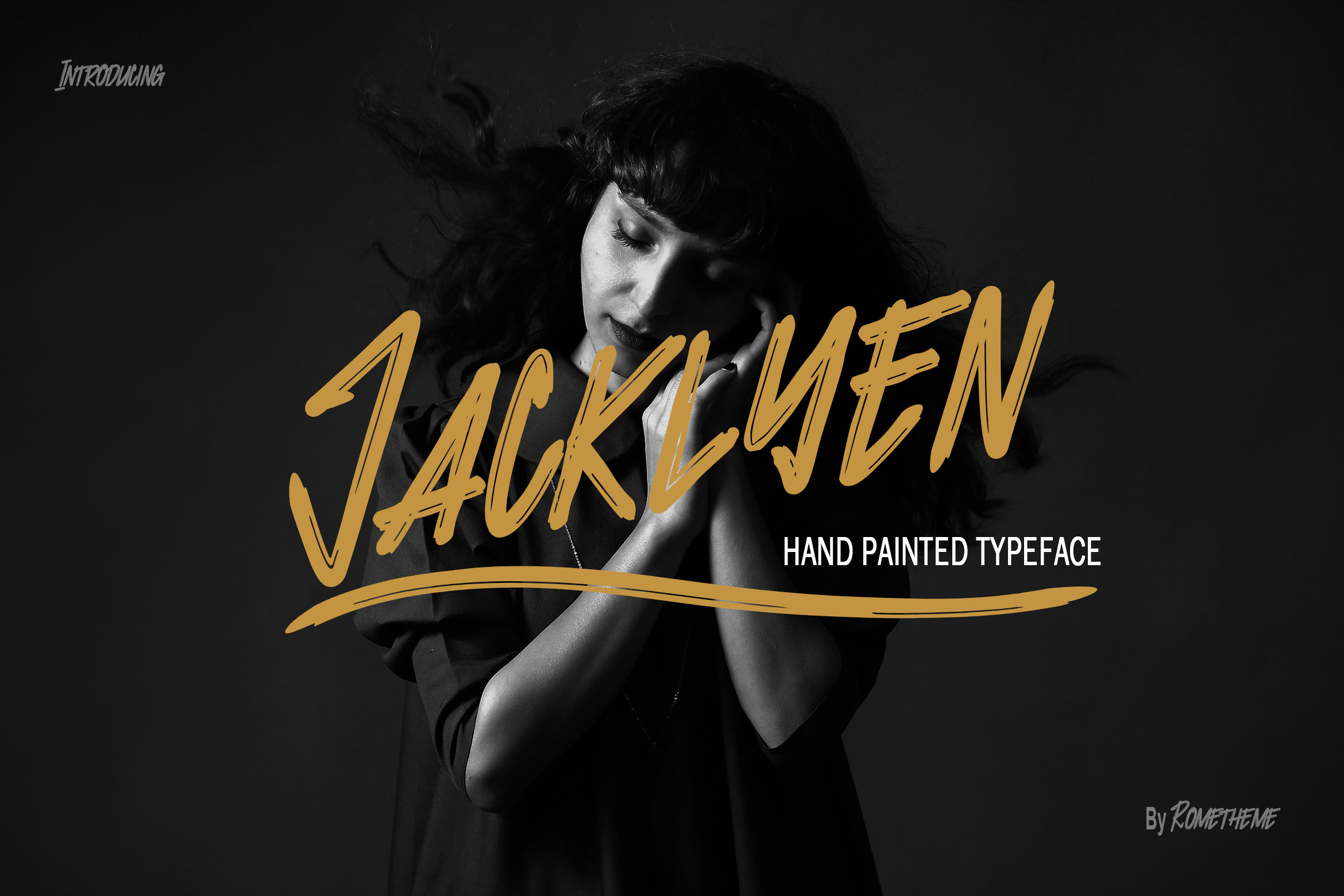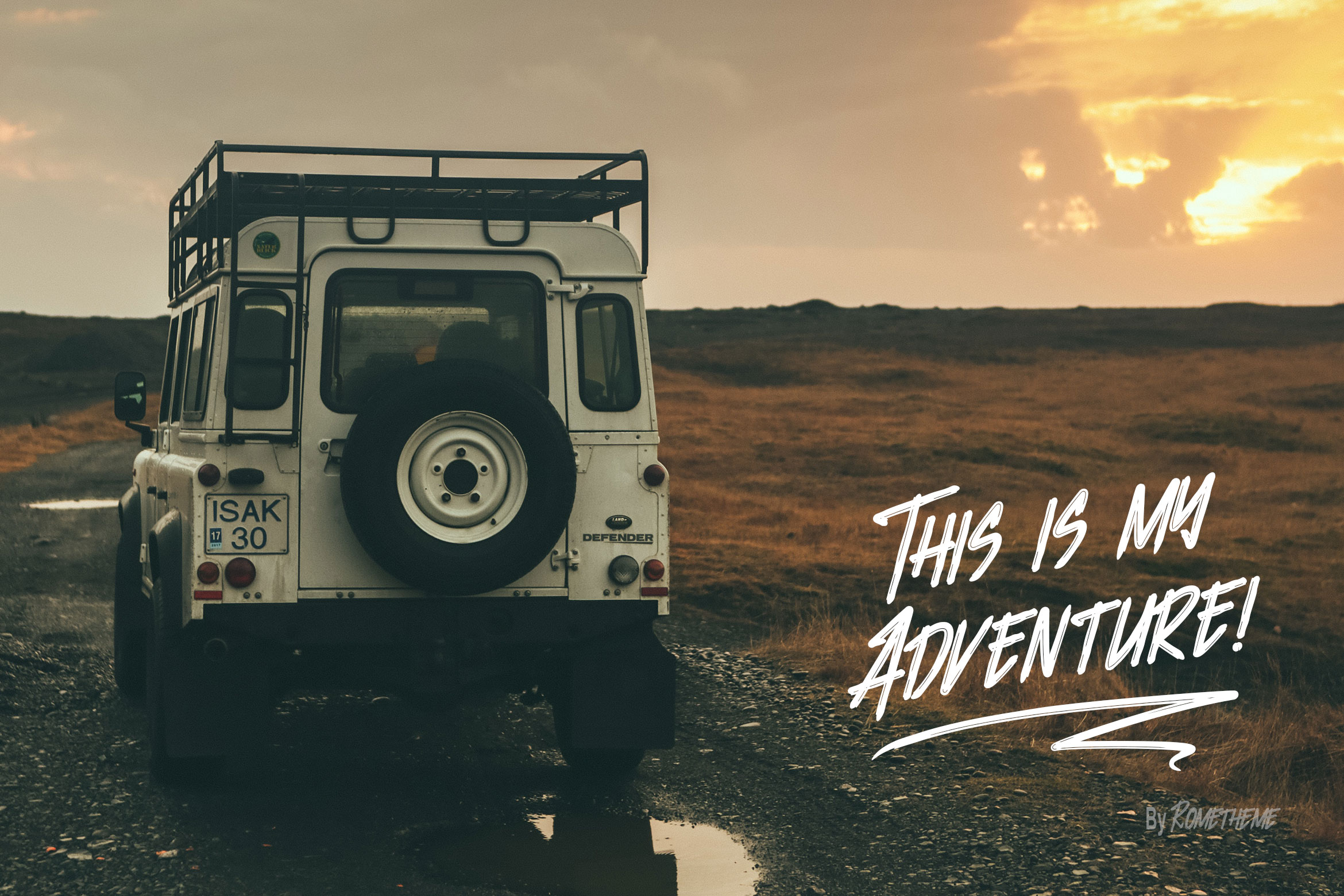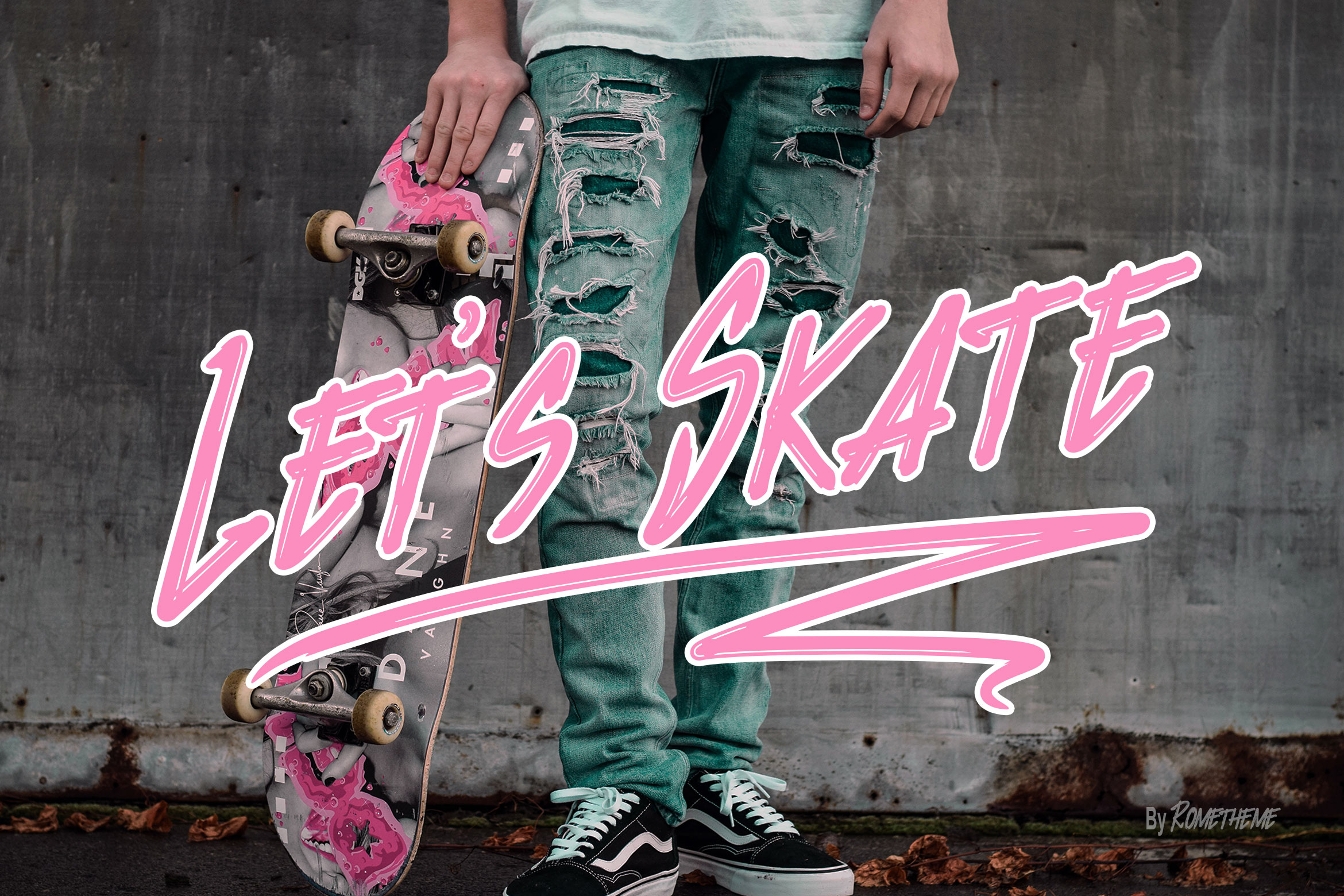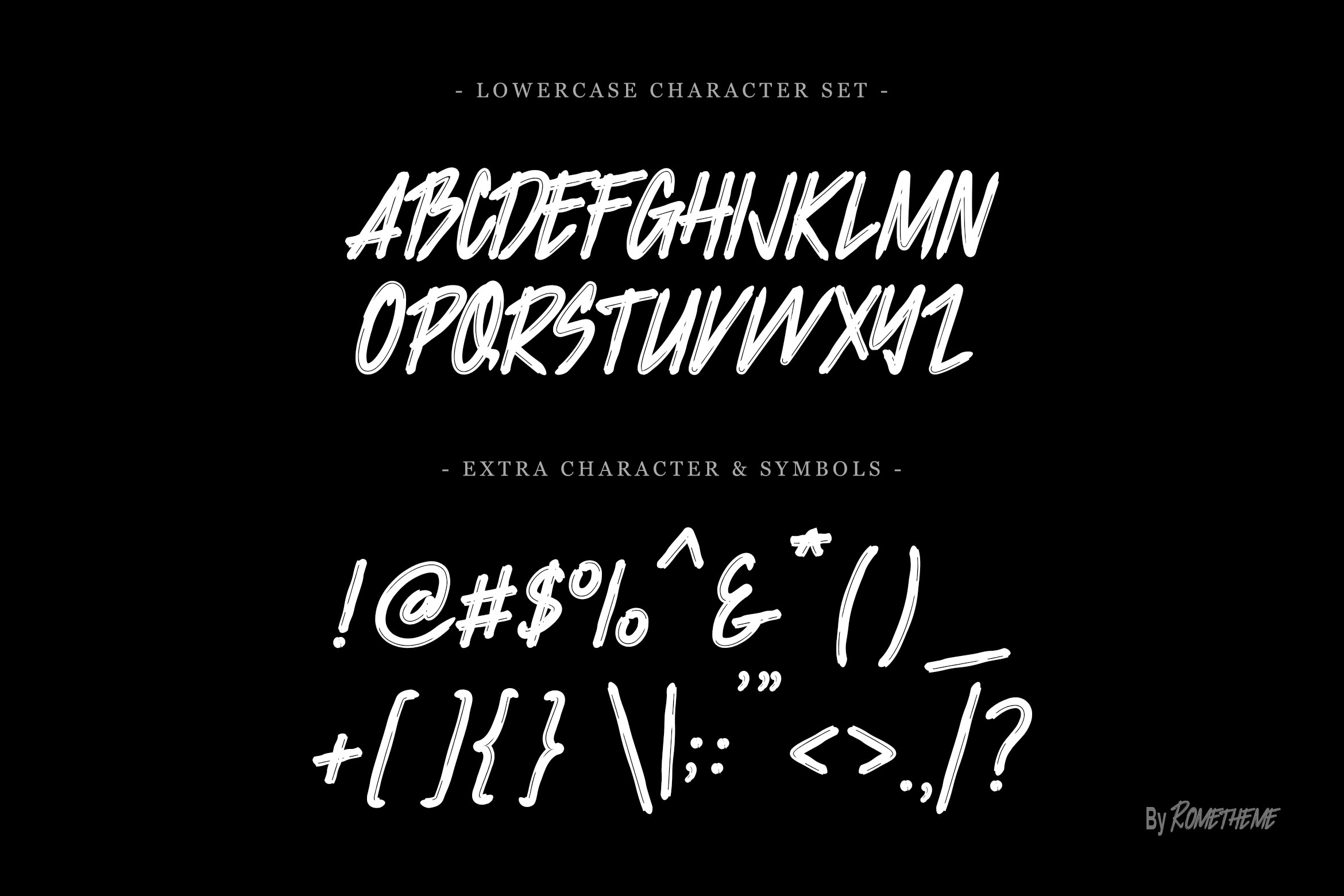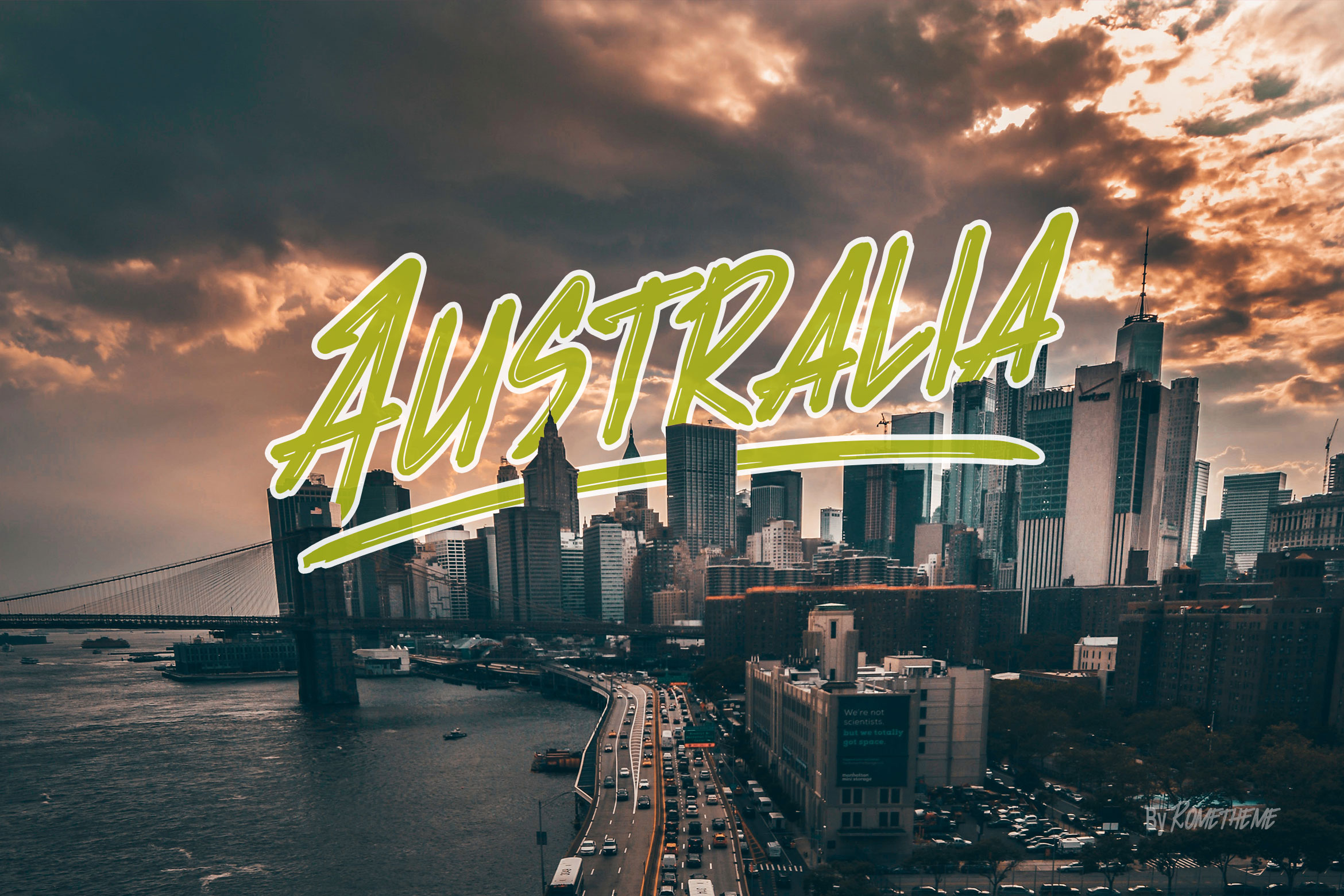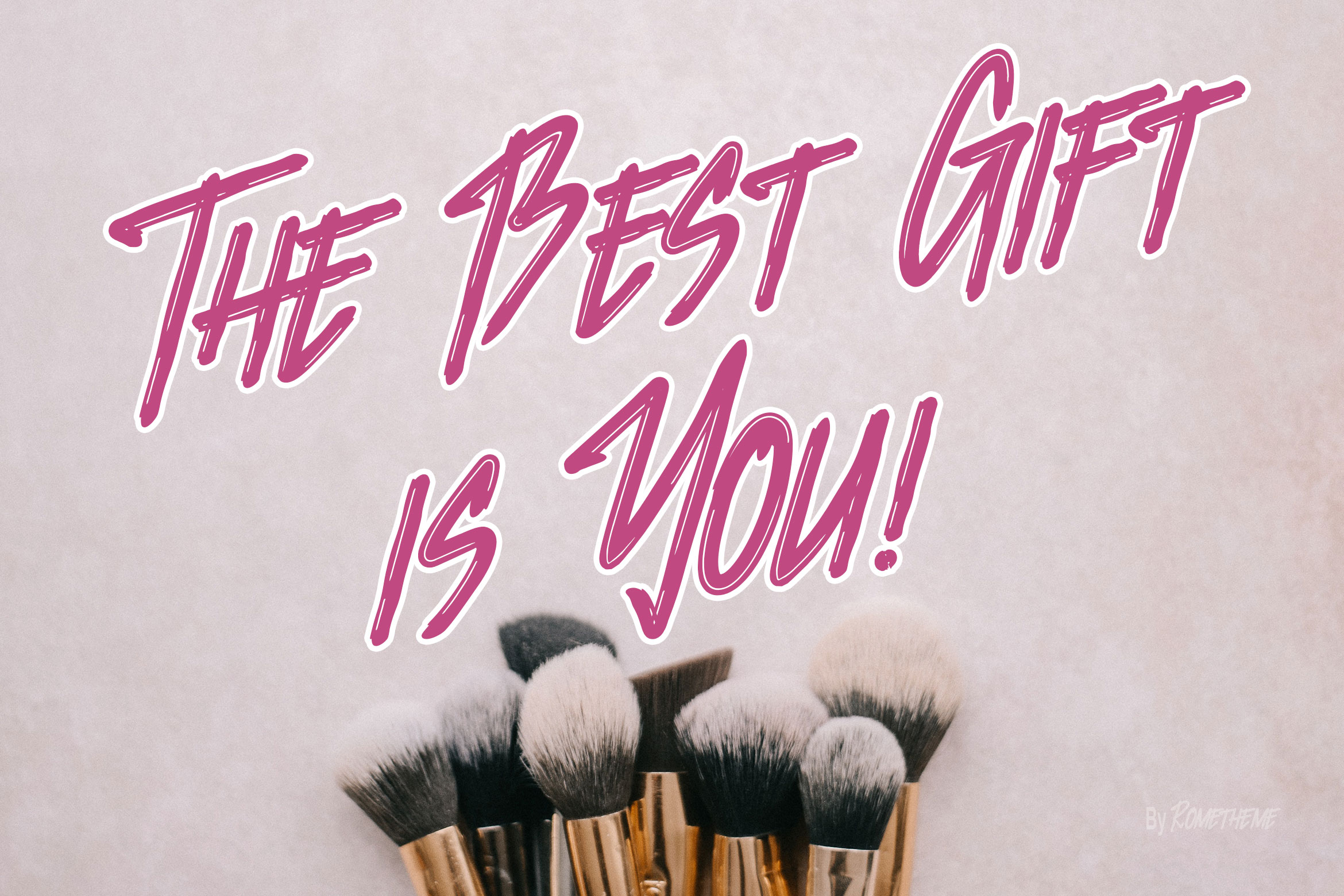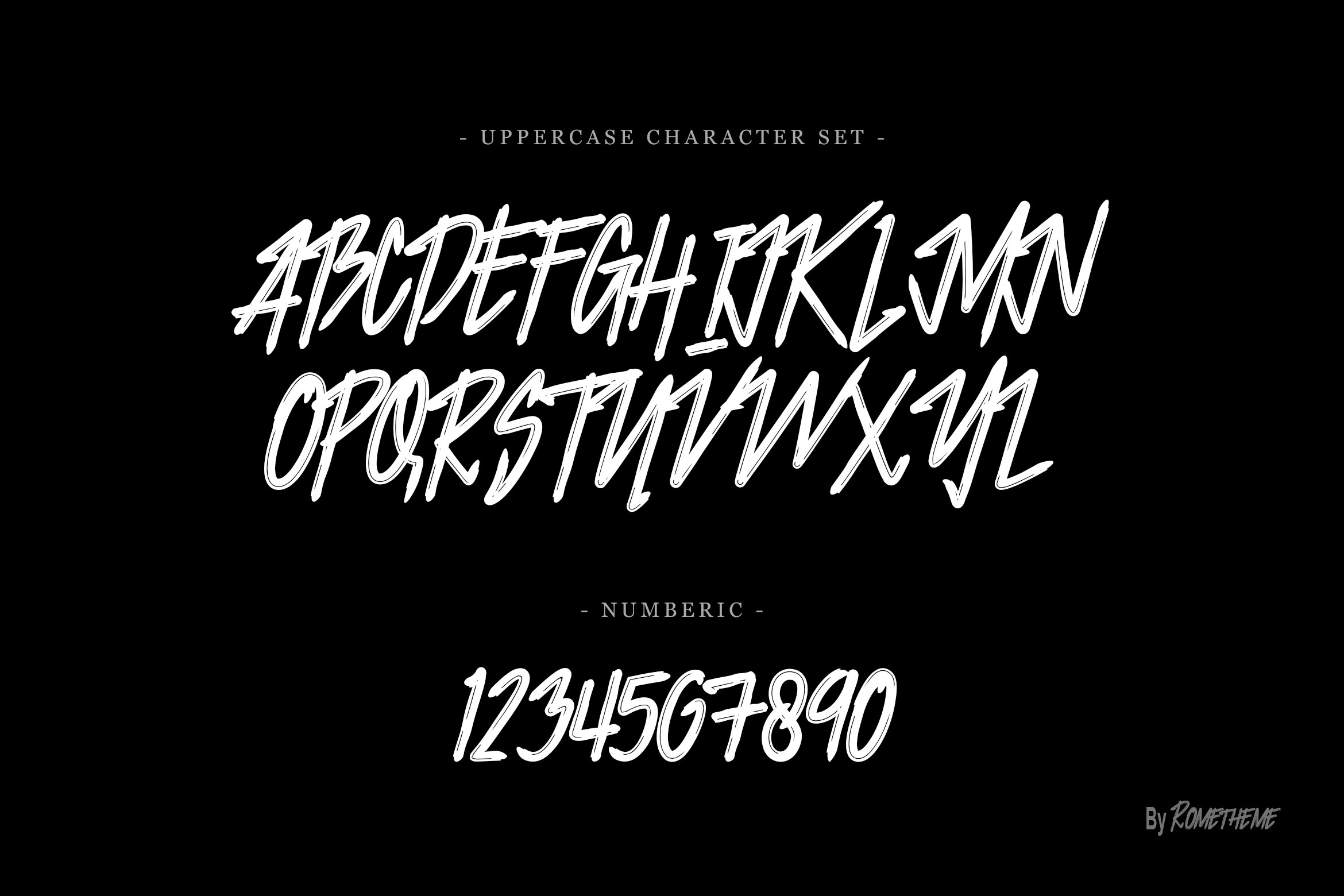
Jacklyen Font
Introducing -Jacklyen is a modern hand-drawn typeface. It has a elegant, classy look, catchy, readable and cool. This font is perfect for giving your branding projects, font for fashion, apparel projects, and goth vibe, but also works great for other projects like posters, packaging, advertising, headlines, social media, branding, signage and anything where you want that urban look and feel.